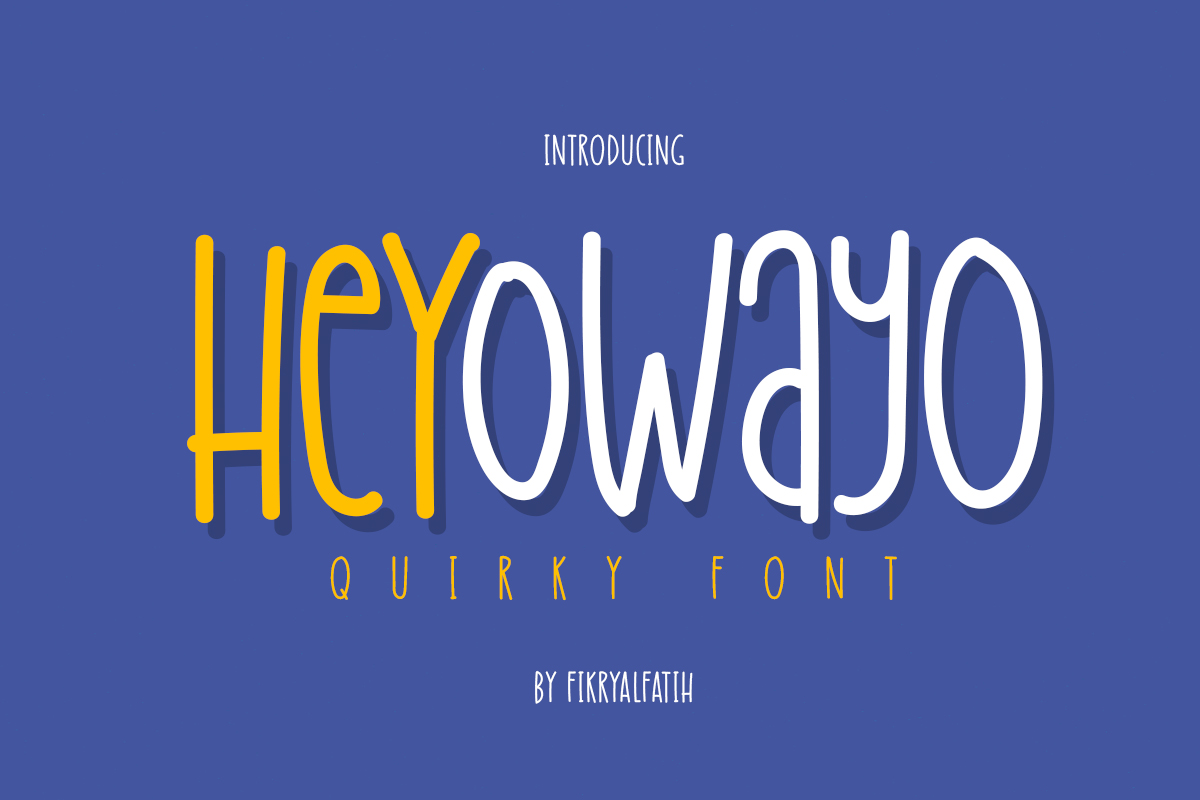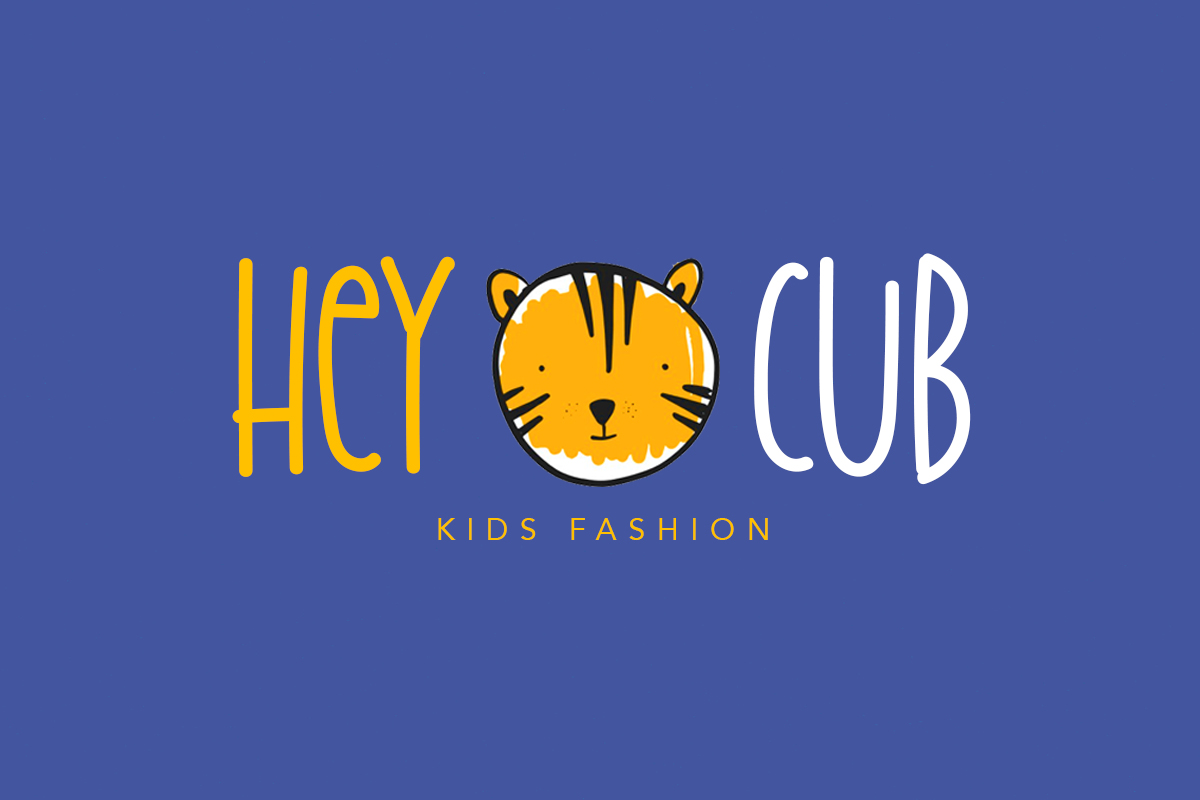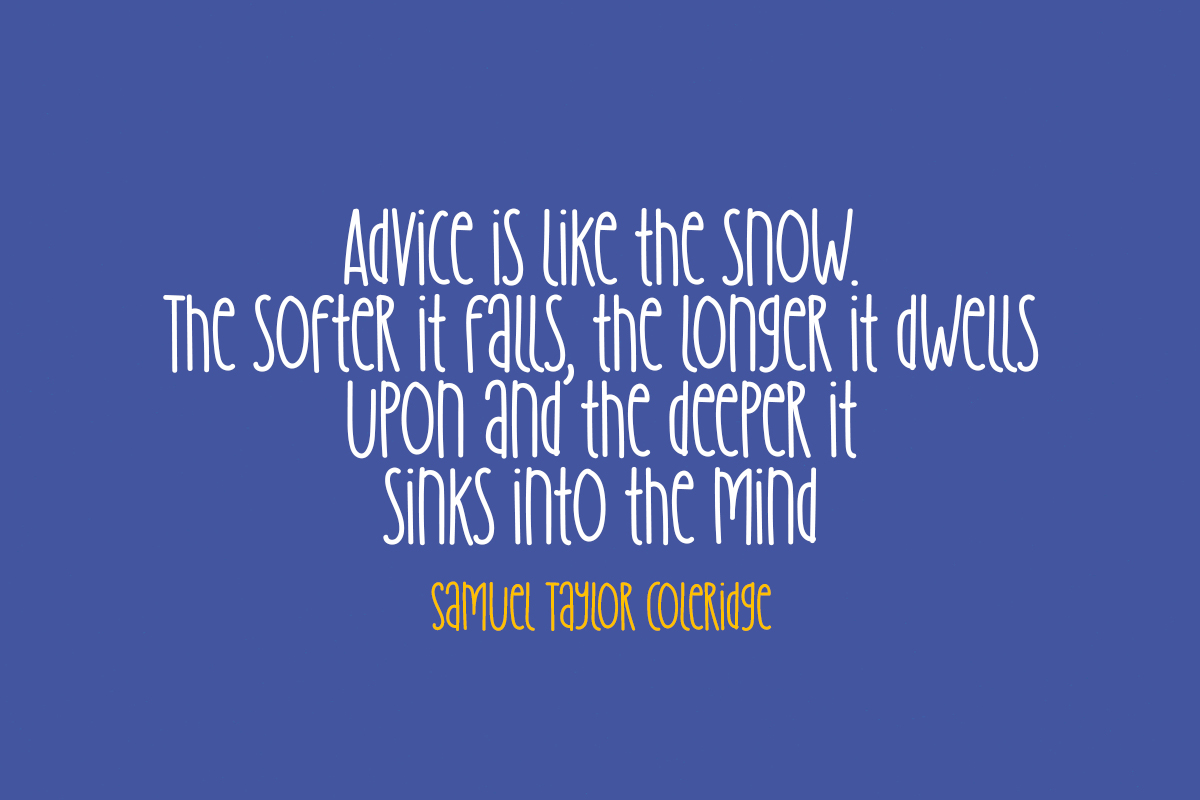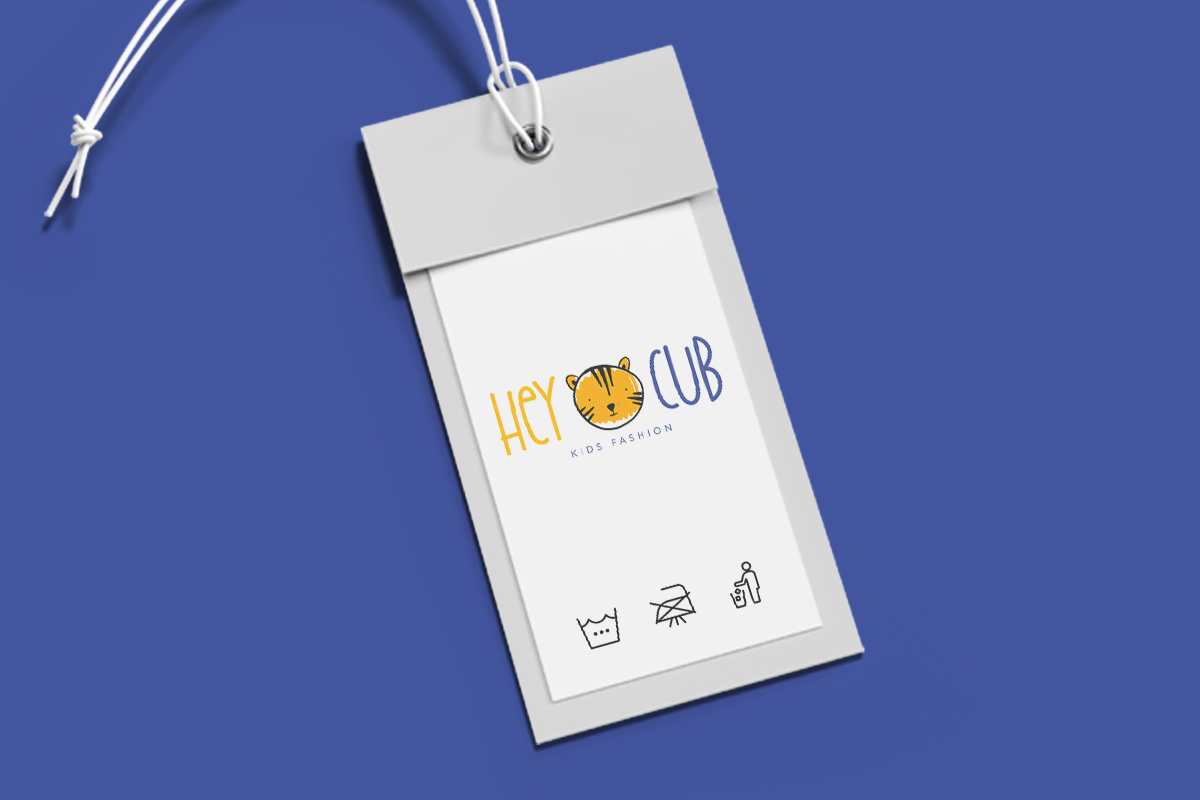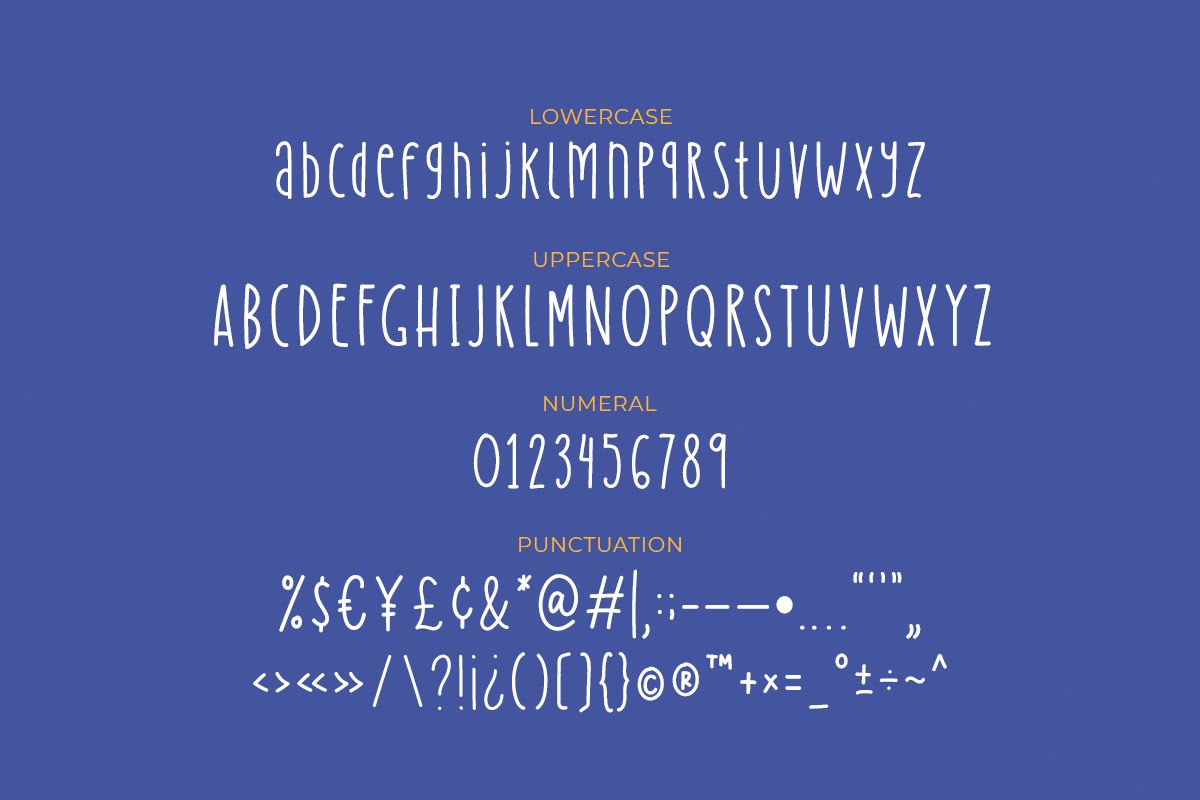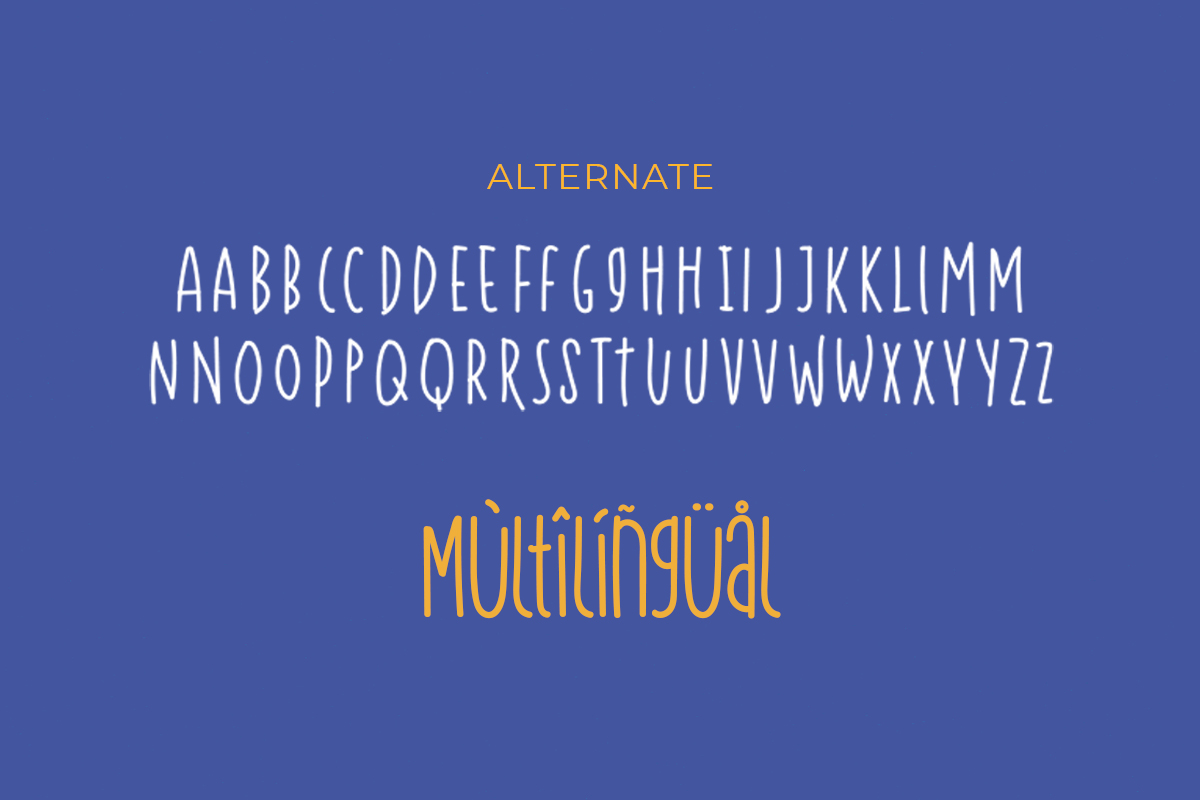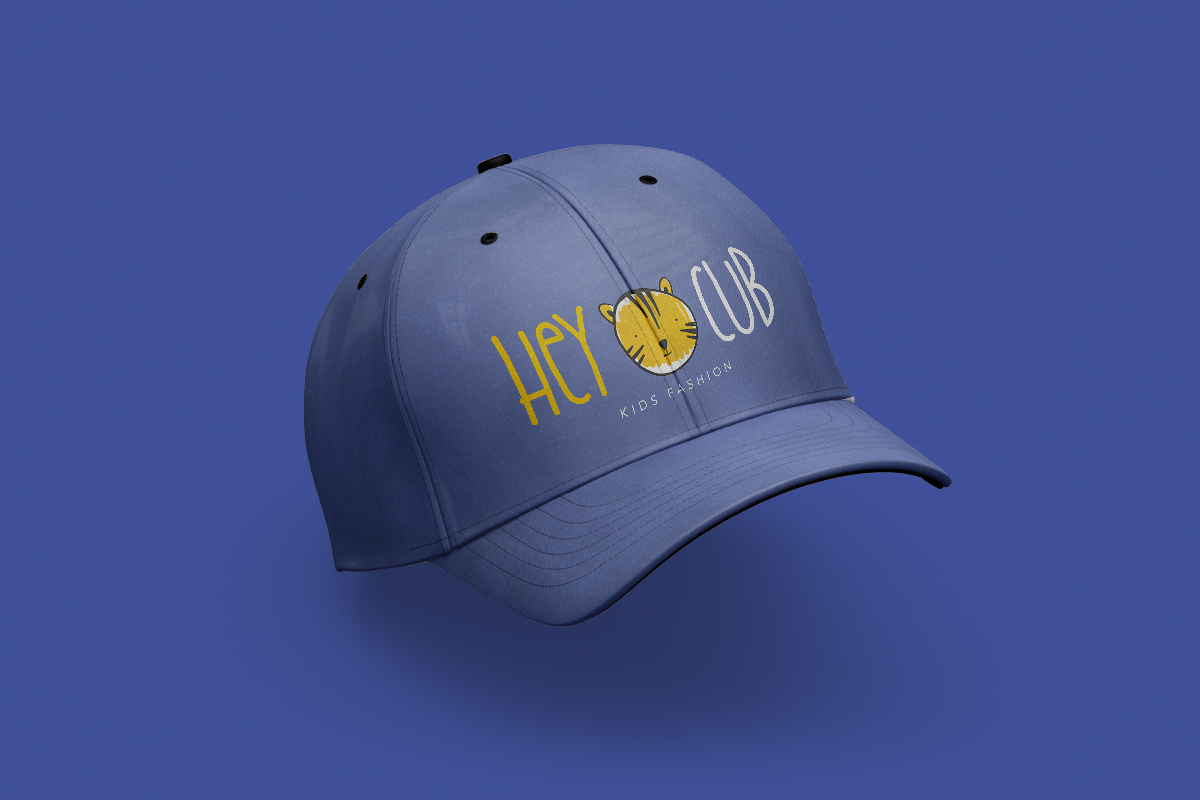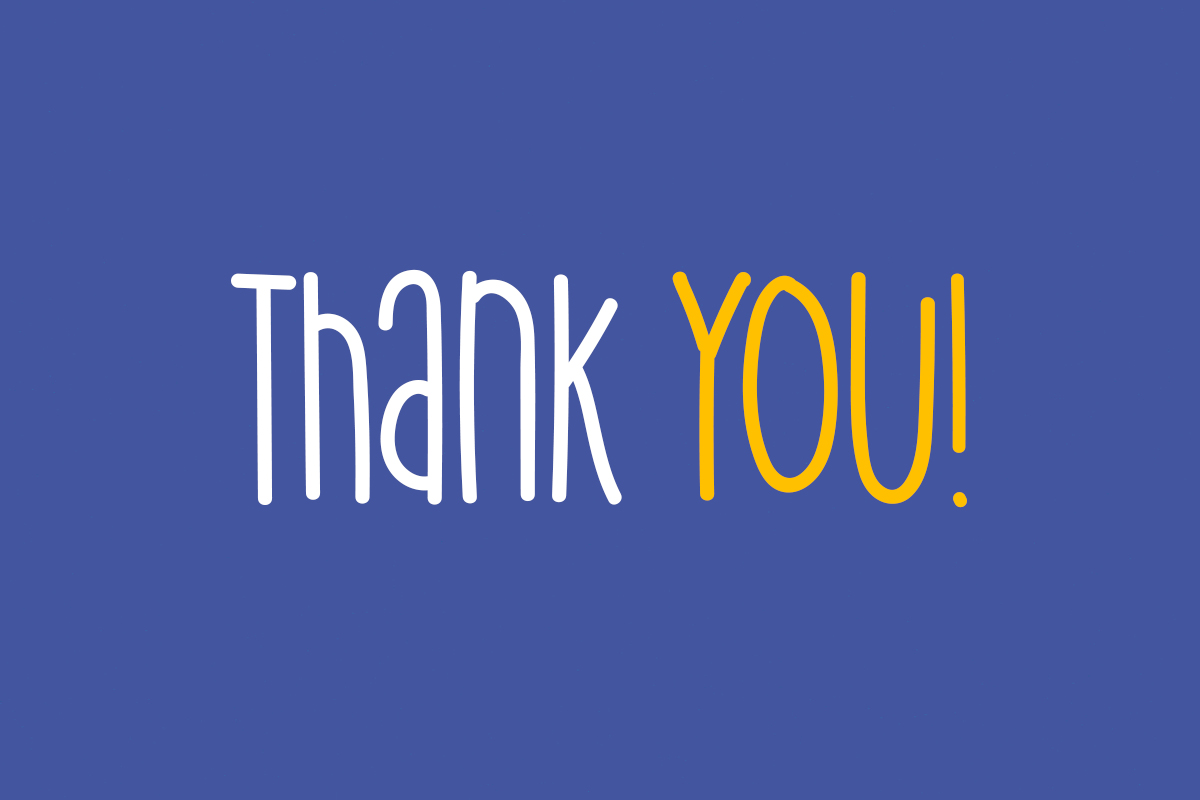
Heyowayo is a lot of fun displaying the typeface. This font is perfect for all your craft projects that require a sense of vibrancy and excitement. It has a fun look and is perfect as a display font. It’s perfect for branding projects, logos, social media posts, advertising, product packaging, product designs, labels, invitations, stationery, and any project that requires a handwritten feel.
- Uppercase & Lowercase
- Numbers & Punctuation
- Alternate
- Multilingual characters
Heyowayo - Playful Font